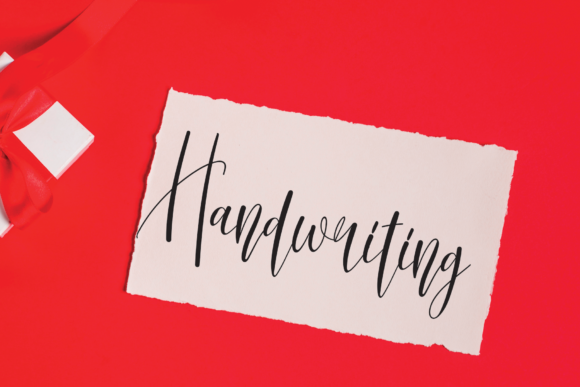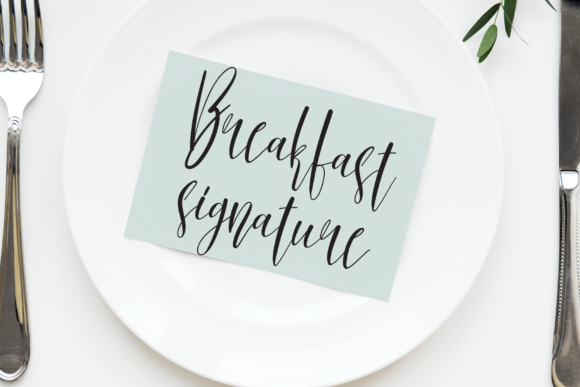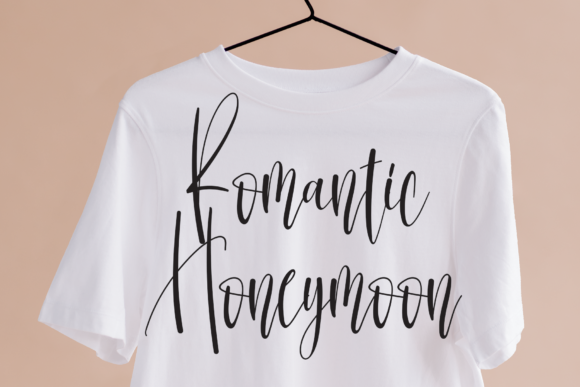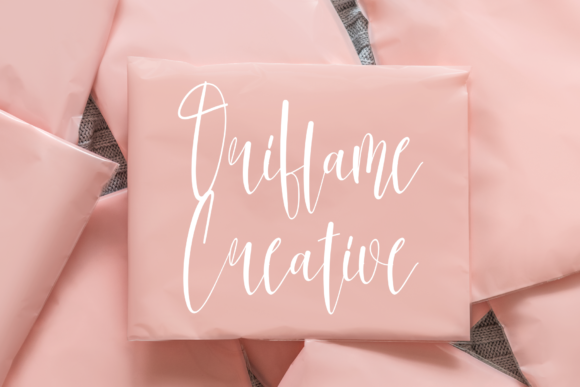
About Thanksgiving Font
Thanksgiving is a creative handwriting font. It’s suitable for any projects such as logos, branding projects, homeware designs, product packaging, mugs, quotes, posters, shopping bags, t-shirts, book covers, name cards, invitation cards, and greeting cards.